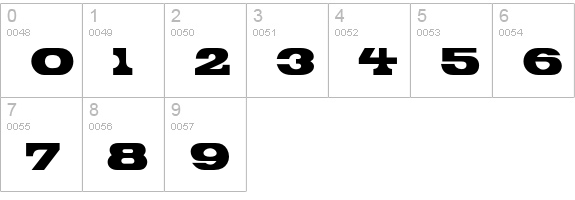
Giorgio-Normal Font Details
Giorgio-Normal is the standard, neutral variant in the Giorgio typeface family \xE2\x80\x94 well suited to general body text, paragraphs, and standard typographic work.
Giorgio-Normal font is a versatile and elegant typeface that exudes sophistication and modernity. With its clean lines and balanced proportions, Giorgio-Normal is perfect for a wide range of design projects, from branding to editorial. The font's timeless aesthetic makes it a go-to choice for designers looking to add a touch of class to their creations. What sets Giorgio-Normal apart is that it is not only stylish and functional but also completely free to download. Yes, you read that right - you can get your hands on this high-quality font at absolutely no cost. Simply head over to FontsMarket.com and start using Giorgio-Normal in your projects today. With its seamless integration into various design applications and its eye-catching appeal, Giorgio-Normal is sure to elevate your design work to new heights. Download it now and see for yourself the magic of this stunning typeface.